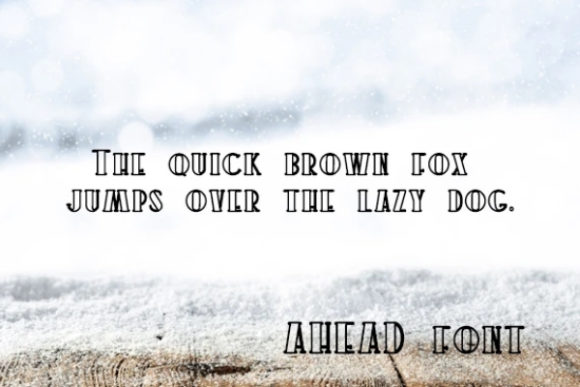
Ahead Font: Elevate Your Designs with Elegance and Versatility
In the world of typography, fonts play a crucial role in conveying messages, evoking emotions, and creating visual identities. For designers and crafters seeking a unique and sophisticated look, Ahead Font is an exceptional choice. This stunning display font seamlessly blends traditional influences with a contemporary aesthetic, making it perfect for projects that demand elegance and versatility.
The Distinctive Characteristics of Ahead Font
Ahead Font boasts well-balanced Latin details with distinctive contrasts, setting it apart from other fonts. Its elegant design ensures that it can be used in a variety of contexts, from luxurious branding and high-end product packaging to sophisticated editorial content and digital media. The font’s classic influences are skillfully merged with modern elements, resulting in a truly unique visual identity.
Achieve an Exquisite yet Subtle Look with Ahead Font
One of the standout features of Ahead Font is its ability to convey refinement and subtlety. Its exquisite design makes it perfect for projects where a touch of sophistication is required, without overpowering the content. Whether you’re working on a luxury brand campaign, a high-end fashion editorial, or a bespoke craft project, Ahead Font provides the perfect balance of elegance and restraint.
Maximum Versatility for Diverse Applications
Ahead Font’s versatility is another key advantage, making it suitable for a wide range of applications. Designers and crafters can use it to:
- Create stunning logos and brand identities that exude luxury and sophistication
- Elevate editorial content, such as magazines, newspapers, and blogs, with a touch of elegance
- Design beautiful packaging for high-end products, including cosmetics, jewelry, and luxury goods
- Develop visually striking digital media, including social media graphics, website headers, and advertising campaigns
- Craft unique and eye-catching craft projects, such as handmade cards, invitations, and gift tags
Why Choose Ahead Font?
With so many fonts available, why choose Ahead Font? Here are just a few compelling reasons:
- Unique Design: Ahead Font’s distinctive blend of traditional and modern elements makes it a standout in any design
- Elegance and Versatility: Its exquisite design and adaptability make it perfect for a wide range of projects and applications
- High-Quality Typography: Ahead Font is crafted with attention to detail, ensuring crisp and clear rendering in any context
Tips for Using Ahead Font Effectively
To get the most out of Ahead Font, consider the following tips:
- Pair with Complementary Fonts: Combine Ahead Font with complementary fonts to create visually striking headlines and body text
- Experiment with Colors: Try Ahead Font with different colors and textures to add depth and interest to your designs
- Pay Attention to Spacing: Ensure that your design has sufficient spacing to allow Ahead Font’s elegant lines to breathe
Ahead Font is a truly exceptional display font that offers a unique blend of traditional influences and contemporary style. Its elegant design, versatility, and high-quality typography make it perfect for designers and crafters seeking to elevate their projects with a touch of sophistication. Whether you’re working on a luxury brand campaign, a high-end editorial, or a bespoke craft project, Ahead Font is an excellent choice.